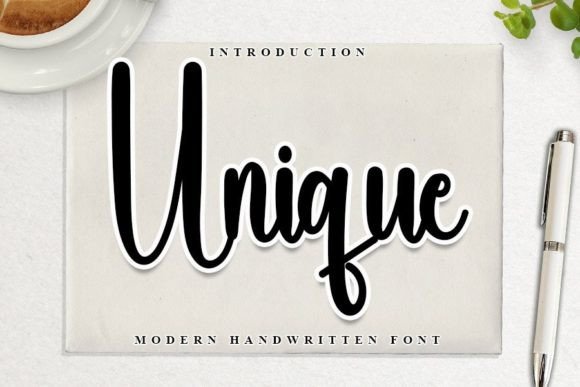
About Unique Font
“Unique” is a stylish handwritten font that exudes a contemporary atmosphere while embodying the impeccable form reminiscent of timeless classic calligraphy. This font strikes a perfect balance between sophistication and variety, aiming to elevate the beauty of your projects with its carefully crafted design.
The contemporary vibe of Unique makes it a versatile choice for a wide range of applications. From branding and logo design to editorial projects, social media graphics, and beyond, this font is tailored to enhance the visual appeal of your creations.
The inspiration drawn from classic calligraphy lends a touch of elegance and timelessness to Unique. Whether you’re working on invitations, wedding stationery, or any project where a refined aesthetic is crucial, Unique stands out as an excellent choice to convey a sense of style.
The balanced and varied nature of this font ensures that it remains visually engaging across different design elements. Its adaptability allows it to seamlessly integrate into diverse contexts, providing consistency and sophistication throughout your projects.
In summary, Unique is more than just a font; it’s a design asset carefully crafted to bring a contemporary yet timeless charm to your creative endeavors. Let Unique be the stylish handwritten font that adds an extra layer of beauty and sophistication to your projects, making them truly stand out.